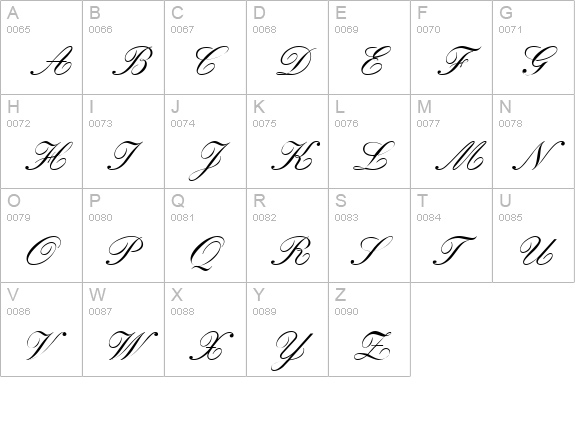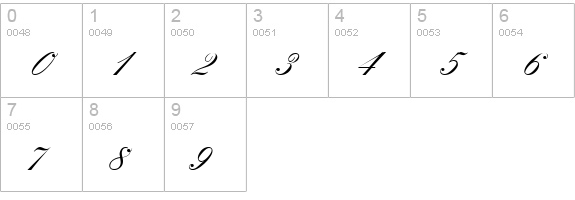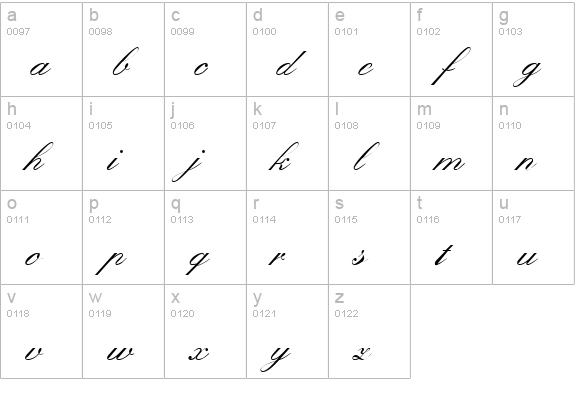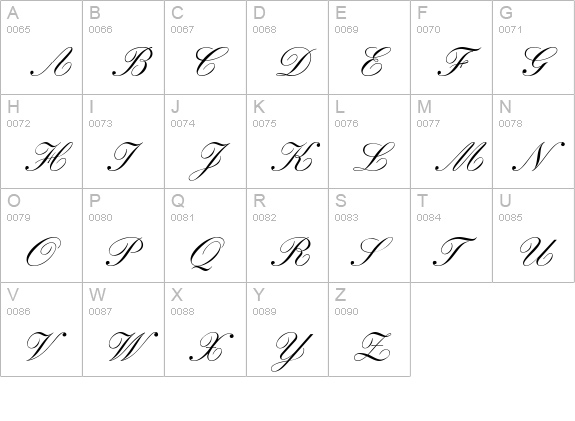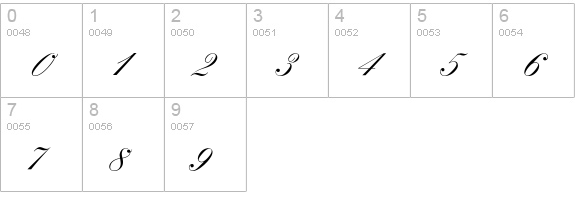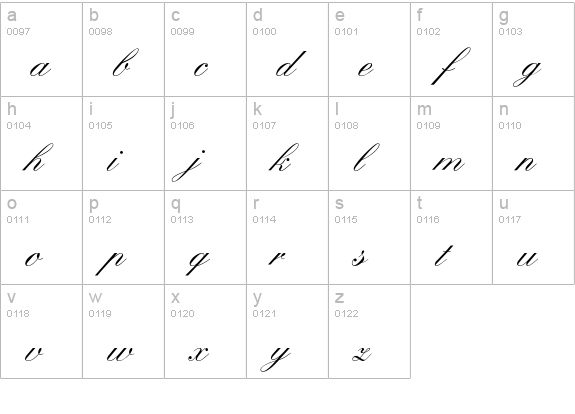
TR Kastler Italic is a distinctive, italic variant in the TR typeface family \xE2\x80\x94 well suited to design and typography projects.
TR Kastler Italic is a sleek and modern font designed for those looking to add a touch of sophistication to their projects. With its elegant curves and stylish letterforms, this font exudes a sense of refined elegance. The italic style adds a dynamic flair to any text, making it perfect for conveying a sense of movement and energy. Best of all, TR Kastler Italic is available for free download at FontsMarket.com. This means you can easily access this high-quality font without breaking the bank. Whether you're working on a personal project or a professional design, TR Kastler Italic is sure to elevate your work with its timeless charm and versatility.